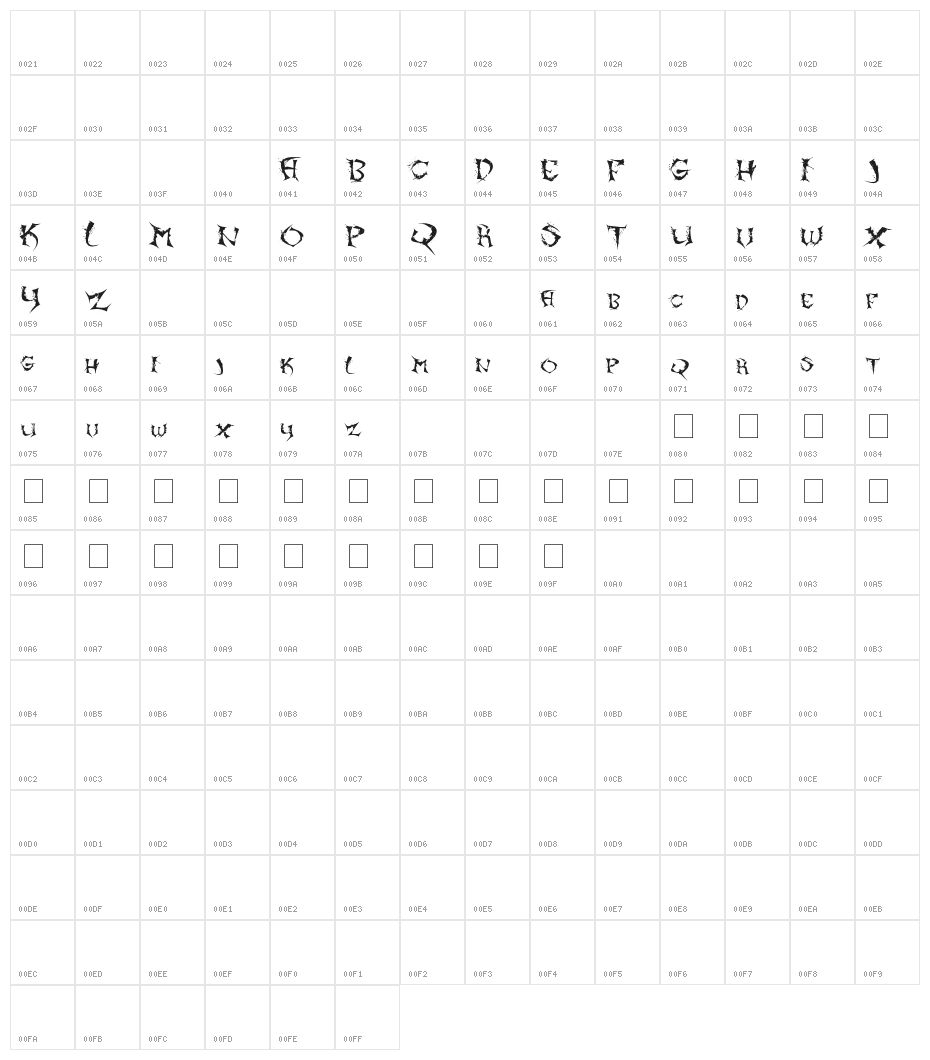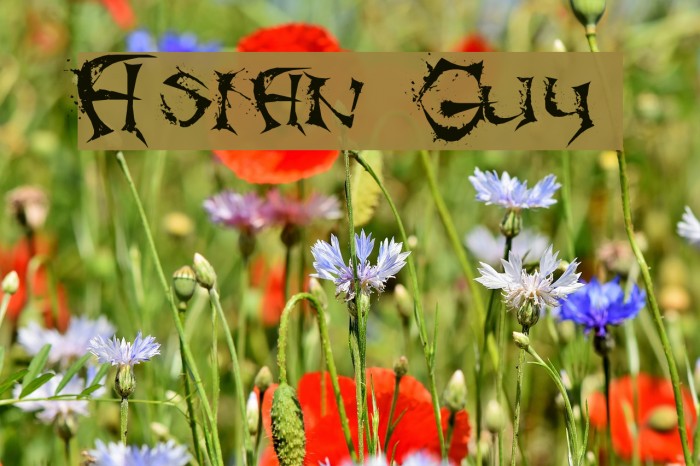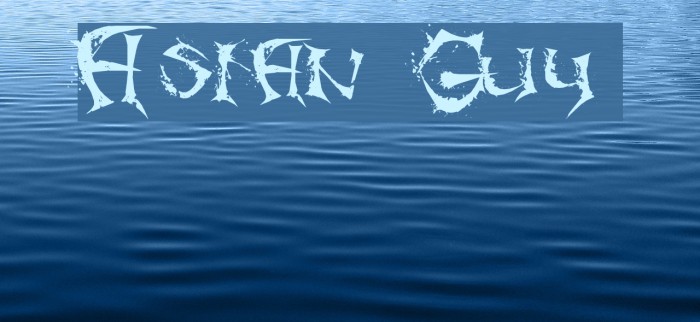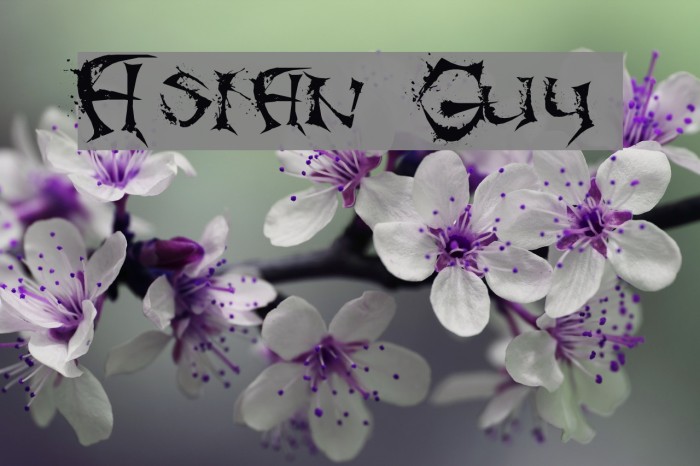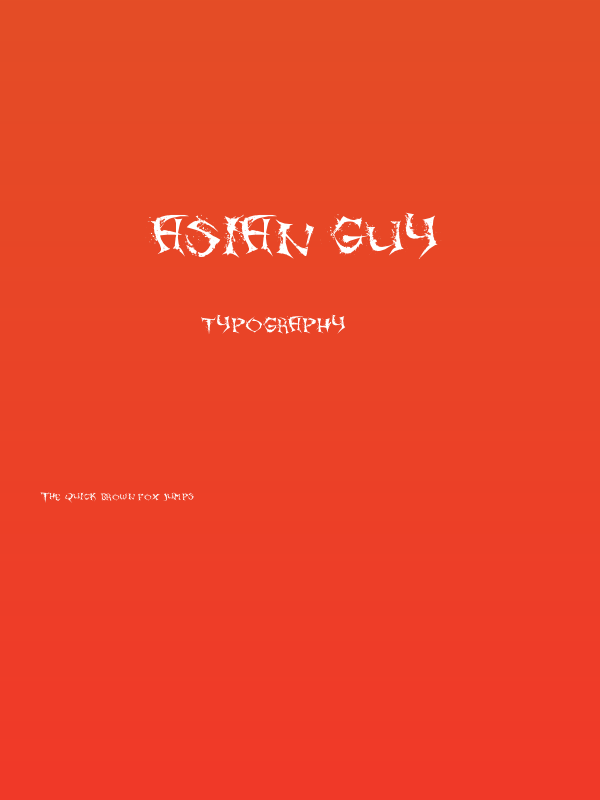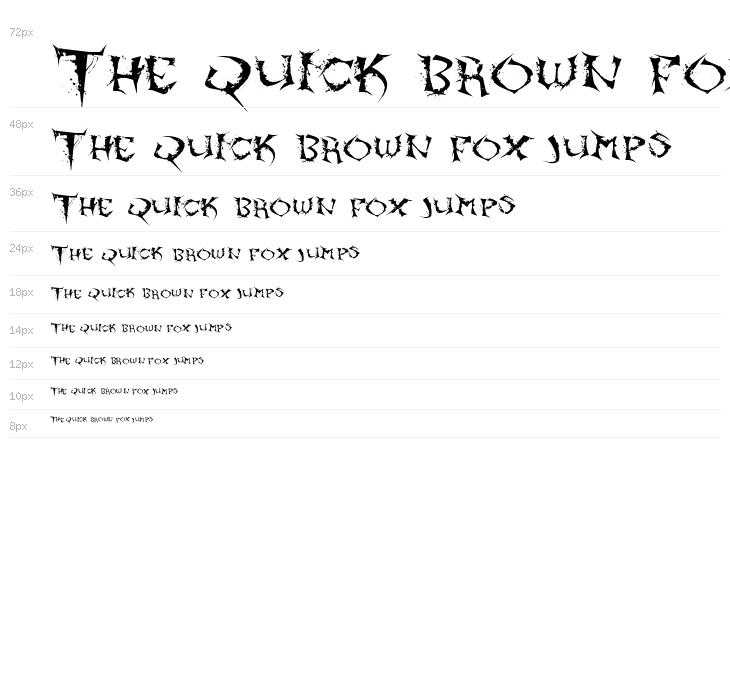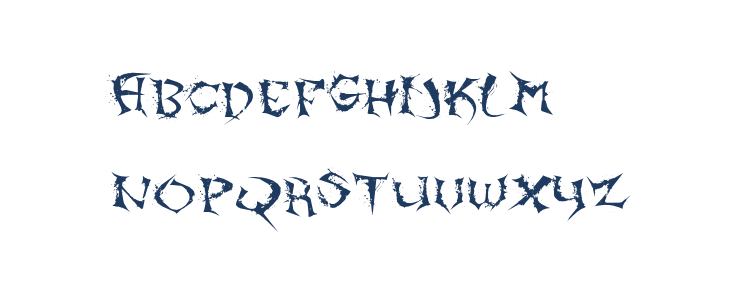
Asian Guy Font
Asian Guy Description
This font features a bold and edgy design with a distinct grunge aesthetic. The characters are crafted with sharp, angular strokes and splatter-like textures, giving it a raw and rebellious feel. The uppercase and lowercase letters maintain a consistent style, with each character exhibiting unique, jagged edges and irregular forms. The numbers and special characters follow the same design principles, ensuring a cohesive look across all glyphs. This font is ideal for projects that require a strong, impactful visual presence, such as music album covers, posters, or branding for alternative or punk-themed events.
| Proposed Projects | Ideal for music album covers, posters, and branding for alternative or punk-themed events. |